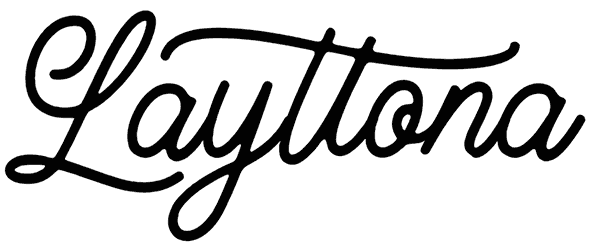
Layttona Font
With its connected and very professional lines, the Layttona font belongs to our collection of hand-lettered and script fonts designed to look handwritten.
Given how the characters are designed, this font is a bit illegible, making it more likely to be used in personal signatures, birthday greeting cards, wedding invitations, etc. In contrast to other cursive and script fonts, this font has a unique look and feel because of the handmade nature of its design.